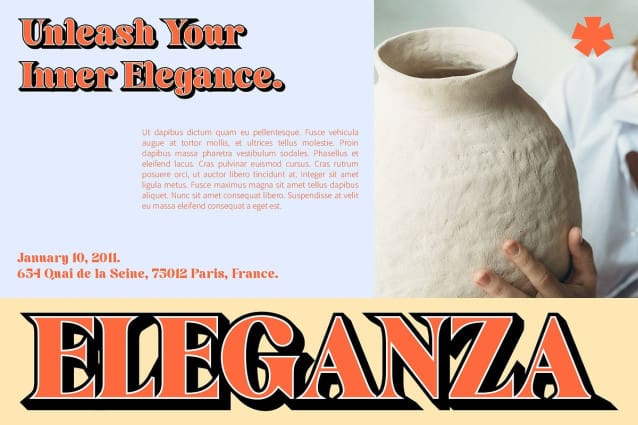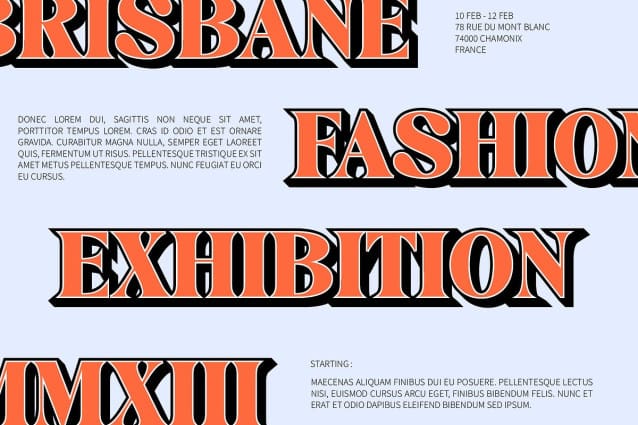
Brivane 3D Font
Brivane 3D Font is a striking serif font that combines sharp, clear letterforms with a strong retro influence reminiscent of mid-20th century typography. The font’s bold structure, enhanced by a subtle 3D effect, adds dimension and depth, making it stand out in any design. Its clean, vintage-inspired lines evoke nostalgia while maintaining a modern, dynamic presence.
Nostalgic Yet Contemporary This font’s retro vibe is perfect for designs that aim to celebrate vintage character while keeping a contemporary edge. The 3D effect introduces depth, creating an eye-catching and powerful visual impact. Brivane 3D’s bold serif structure gives it a confident, timeless feel, while the added dimensionality brings it into the modern era.
Perfect for Retro and Bold Branding Brivane 3D is ideal for projects that require a vintage touch with modern flair. Its powerful presence makes it a perfect choice for titles, logos, posters, branding, and other designs that want to evoke a stylish retro atmosphere without sacrificing contemporary appeal. The font’s strong, structured appearance ensures visibility in both digital and print formats, giving designs a bold, memorable look.